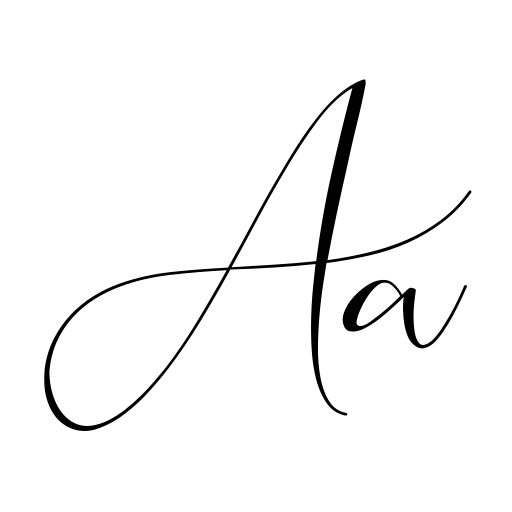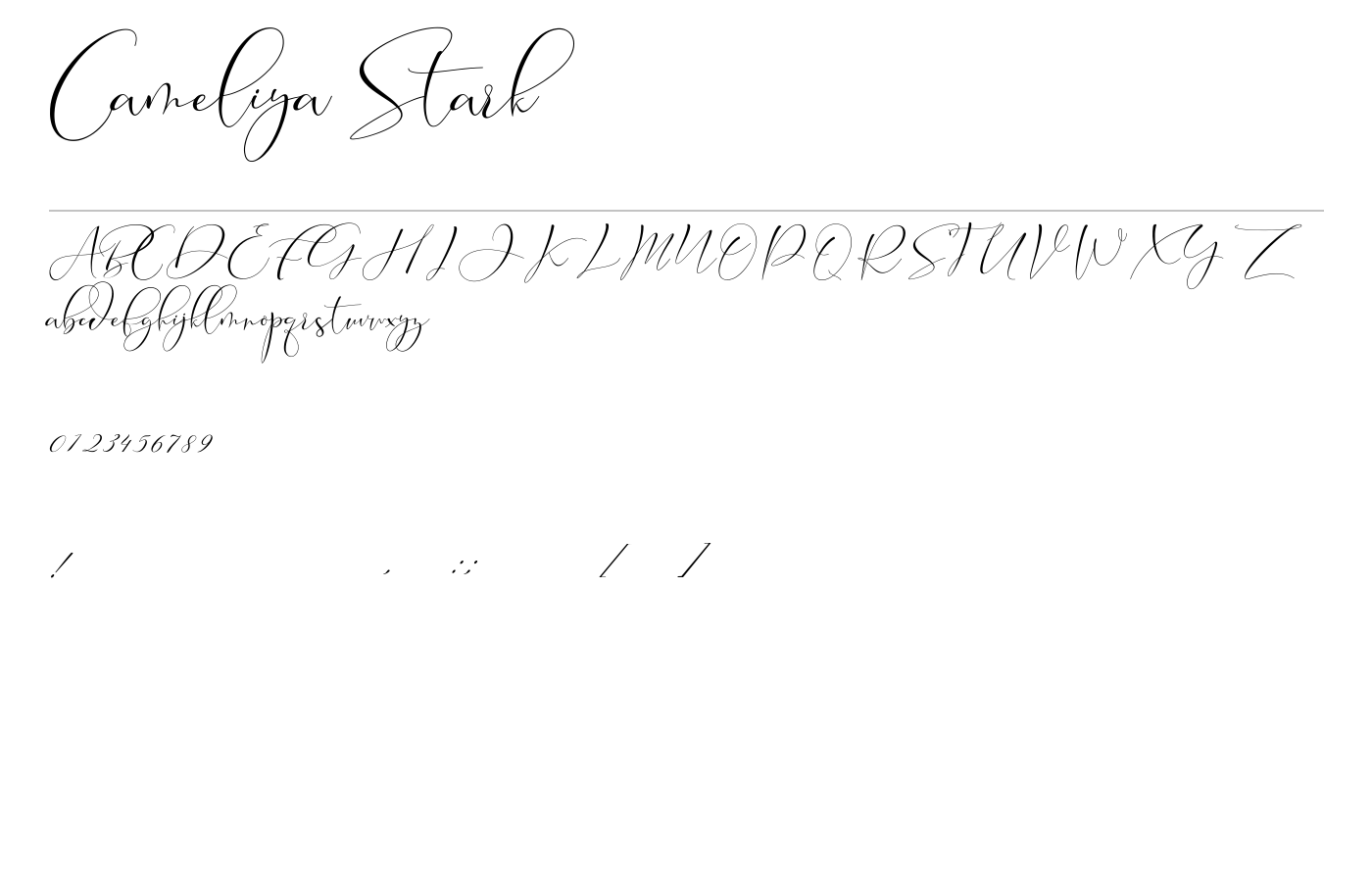
Cameliya Stark is an elegant, delicate script font characterized by its thin, flowing lines and graceful, handwritten style. Its high contrast strokes and intricate swashes give it a sophisticated, artistic feel perfect for luxury branding, wedding invitations, and refined editorial designs. This font excels in creating a romantic, stylish atmosphere in headlines and decorative text.
Cameliya Stark Font
About Cameliya Stark Font
| Designer | Moly Mol |